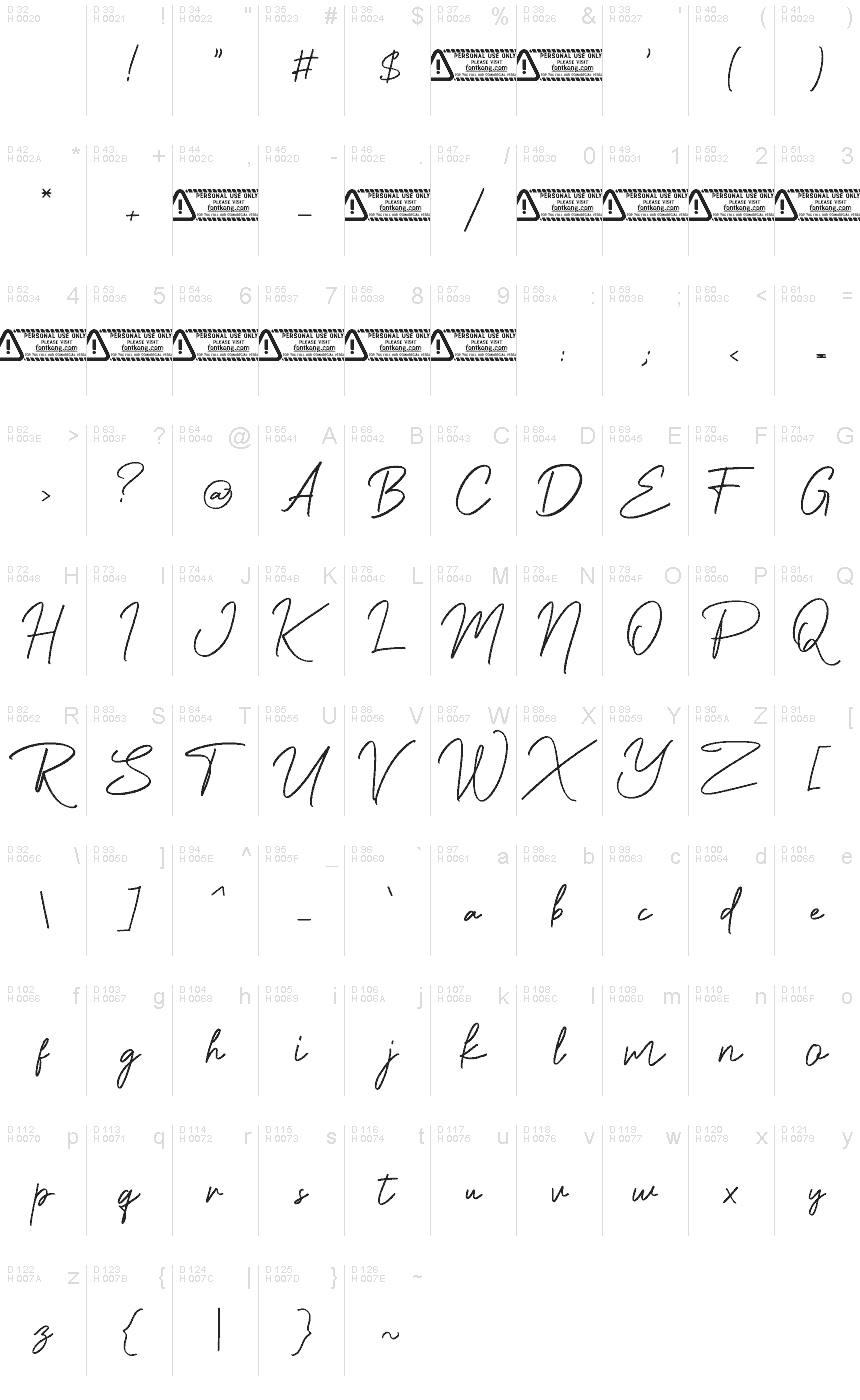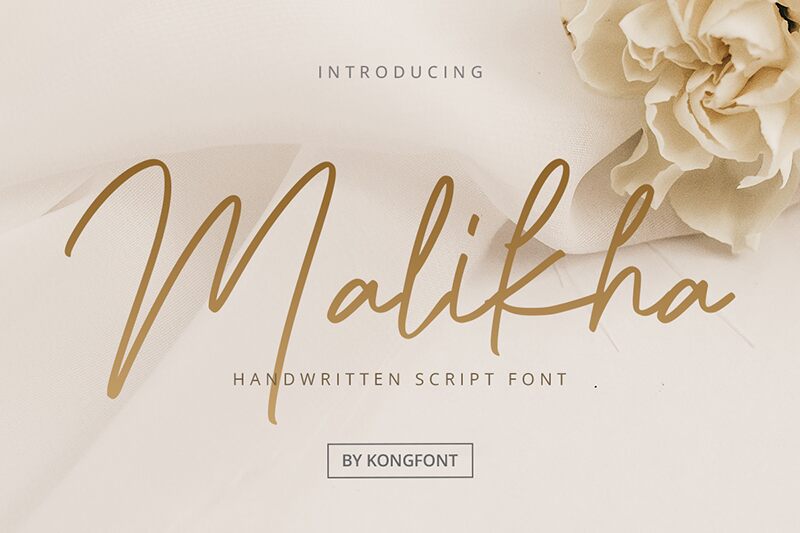
Malikha font by Kong Font is a handwritten signature font that embodies modern elegance. With its light weight and flowing, expressive style, it creates a scribbled-like effect similar to that of a real signature. It has the characteristics associated with both classic and contemporary designs.
This free handwritten font particularly suits branding projects where it becomes your personal representative or voice in the design. Not only that, but you might find its uses in logo design, typography posters, advertising campaigns, banners or even within websites. In print projects, this font makes stylish invitations for events like weddings or Christmas gatherings.